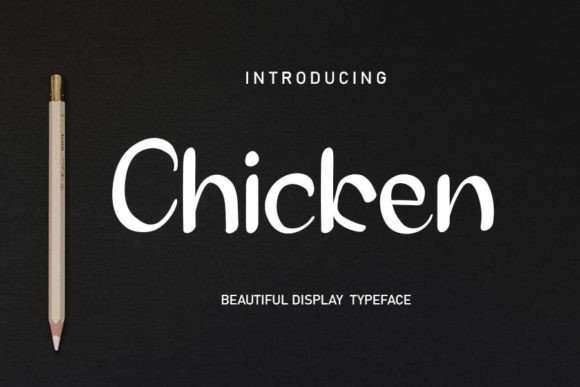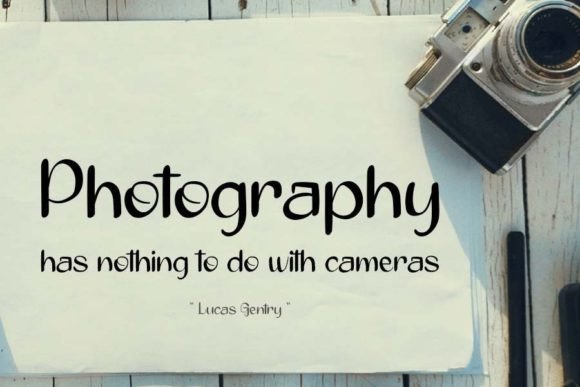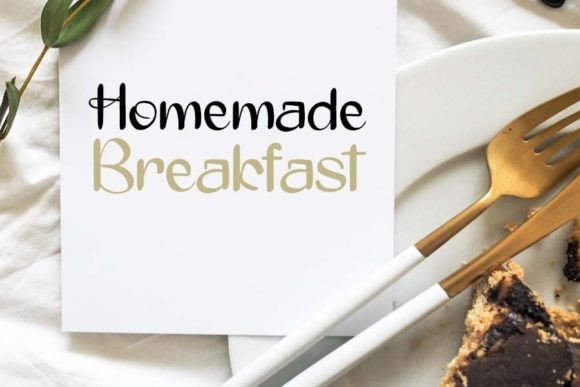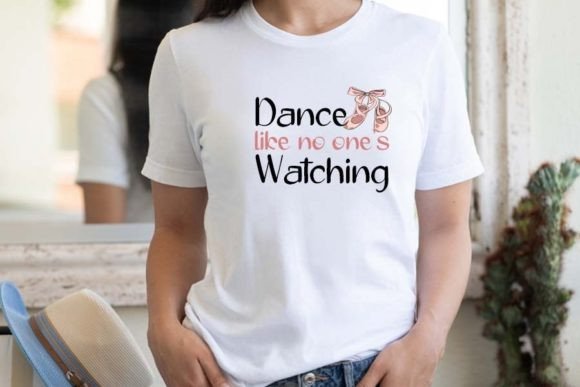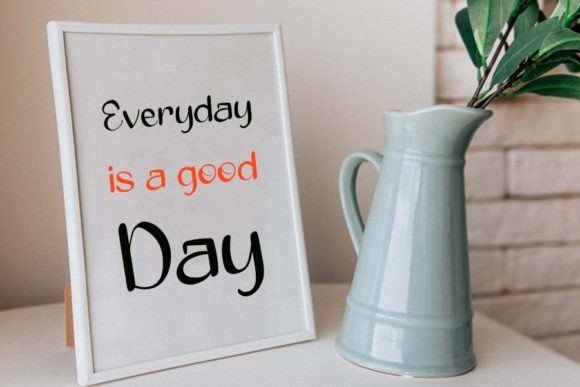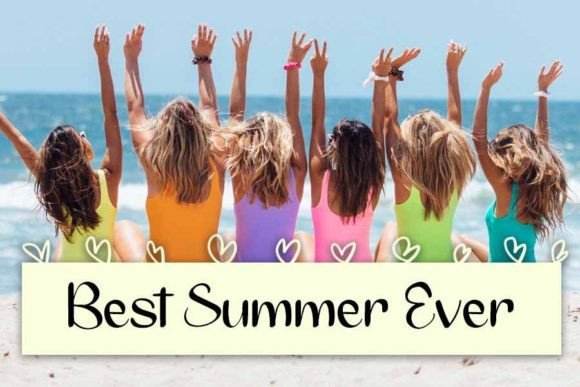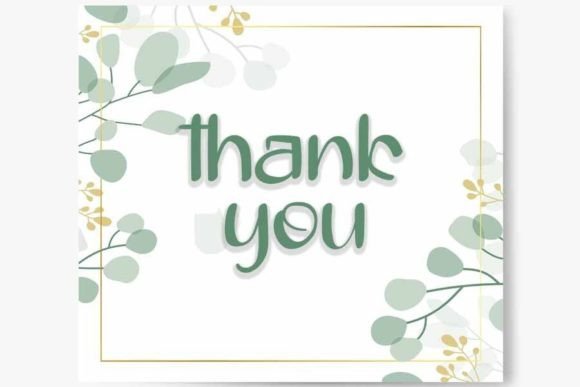
Chicken Font
About Chicken Font
Chicken, a charming handwritten font, is the perfect choice for a wide range of applications, particularly suited for chalkboard quotes and teaching materials. Its authentic, handcrafted appearance effortlessly infuses a personal and realistic feel into your designs, making them resonate with a genuine touch.
The font’s distinctive quality lies in its handwritten aesthetic, capturing the essence of individuality and warmth. When applied to chalkboard quotes, Chicken imparts a sense of genuine expression, as if the words have been spontaneously crafted with chalk on the board. This authenticity resonates with the viewer, creating a connection that goes beyond mere typography.
In educational materials, Chicken brings a friendly and approachable vibe. Its handwritten look mirrors the style of notes and annotations one might find in a teacher’s manual or on a classroom board. This makes the font not only visually appealing but also functionally effective for conveying information in a relatable manner.
The versatility of Chicken extends beyond its primary uses, making it a valuable asset for various design projects. Whether you’re creating custom signage, playful invitations, or DIY crafts, the font’s handwritten charm adds a touch of character and personality. Its adaptability ensures that Chicken can seamlessly integrate into diverse design contexts.
The appeal of Chicken lies not only in its visual authenticity but also in its ability to evoke a sense of nostalgia. The handwritten style harkens back to a time when personal touches and imperfections were celebrated, making it an excellent choice for designs that aim to evoke a sentiment of sincerity and genuineness.
As a tool for creative expression, Chicken provides a canvas for designers to infuse their projects with a handcrafted aesthetic. Its application goes beyond the screen, creating a tactile and nostalgic experience reminiscent of chalk-drawn messages on a blackboard. In a world where digital precision often dominates, Chicken reintroduces the human touch, allowing designers to connect with their audience on a more personal level.
In summary, Chicken is more than just a font; it’s a bridge between the digital and the handmade, a conduit for conveying authenticity and warmth. Whether you’re crafting educational materials or designing charming invitations, Chicken’s handwritten allure adds a layer of personality that elevates your creations and invites a genuine connection with your audience.